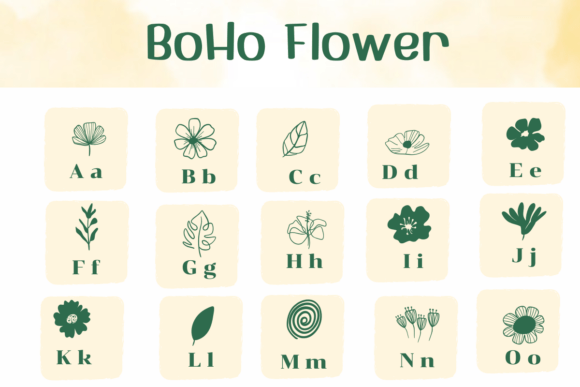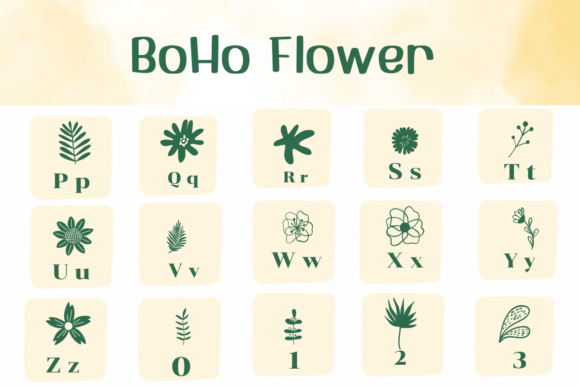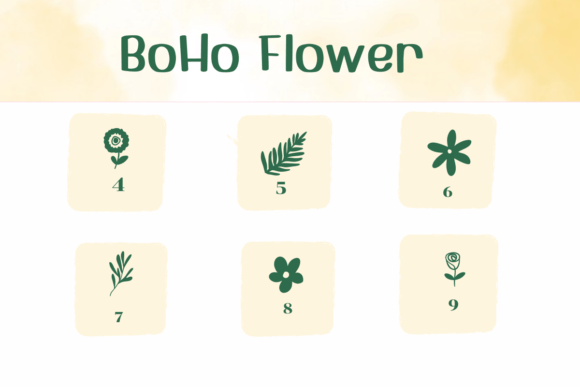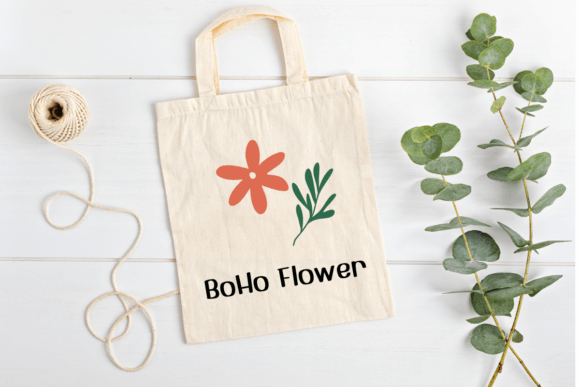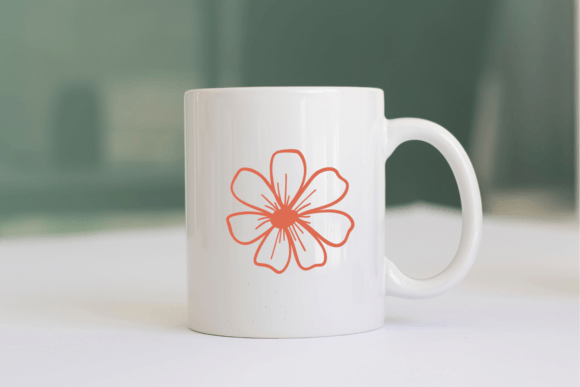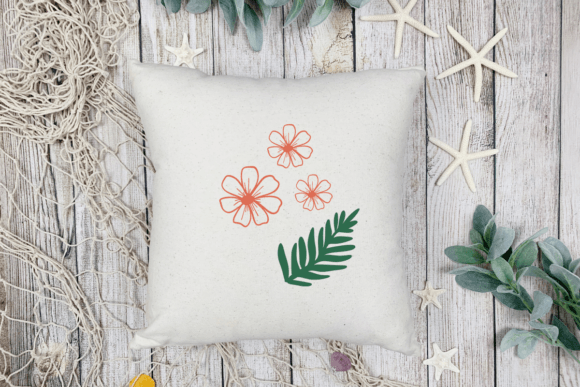
Introducing BoHo Flower Font: Elevate Your Creative Projects with a Touch of Floral Elegance
Are you a designer, crafter, or DIY enthusiast looking for a unique and charming font to add a personal touch to your creative projects? Look no further than BoHo Flower Font, a beautiful dingbats font with a floral theme that’s perfect for a wide range of applications. From wedding invitations and decorations to logos and craft designs, BoHo Flower Font is the ideal choice for anyone seeking to infuse their work with a dash of elegance and whimsy.
What is BoHo Flower Font?
BoHo Flower Font is a specially designed dingbats font that features an exquisite collection of floral symbols, perfect for adding a touch of nature-inspired beauty to your creative projects. This font is meticulously crafted to provide a unique and eye-catching aesthetic that’s sure to captivate your audience. With BoHo Flower Font, you can easily create stunning designs that exude a sense of charm and sophistication.
Uses of BoHo Flower Font
The versatility of BoHo Flower Font makes it an excellent choice for a wide range of creative projects, including:
- Wedding Invitations: Add a touch of romance and whimsy to your wedding invitations, save-the-date cards, and other wedding-related designs with BoHo Flower Font.
- DIY and Crafts: Use BoHo Flower Font to create beautiful and unique designs for your DIY projects, such as paper crafts, scrapbooking, and home decor.
- Decorations: Add a personal touch to your party decorations, garlands, and other event designs with the charming floral symbols of BoHo Flower Font.
- Logos and Branding: Use BoHo Flower Font to create a distinctive and memorable logo for your business or brand, perfect for floral shops, wedding planners, and other related industries.
- Stationery and Gift Tags: Create beautiful and elegant stationery, gift tags, and cards with BoHo Flower Font, perfect for special occasions and everyday use.
Benefits of Using BoHo Flower Font
BoHo Flower Font offers a range of benefits that make it an excellent choice for designers and crafters, including:
- Unique and Eye-Catching Designs: BoHo Flower Font provides a distinctive and charming aesthetic that’s sure to set your designs apart from the rest.
- Easily Customizable: With BoHo Flower Font, you can easily customize your designs to suit your personal style and branding needs.
- Versatile: BoHo Flower Font can be used for a wide range of creative projects, from digital designs to print materials.
- High-Quality: BoHo Flower Font is meticulously crafted to provide a high-quality aesthetic that’s perfect for professional designs.
Tips for Using BoHo Flower Font
To get the most out of BoHo Flower Font, here are some tips to keep in mind:
- Experiment with Different Sizes and Colors: Play around with different sizes and colors to find the perfect combination for your design.
- Mix and Match with Other Fonts: Combine BoHo Flower Font with other fonts to create a unique and visually appealing design.
- Use for Digital and Print Materials: BoHo Flower Font can be used for both digital and print materials, making it a versatile choice for a wide range of projects.
BoHo Flower Font is a beautiful and versatile dingbats font that’s perfect for designers, crafters, and DIY enthusiasts looking to add a touch of floral elegance to their creative projects. With its unique and eye-catching designs, easily customizable features, and high-quality aesthetic, BoHo Flower Font is an excellent choice for anyone seeking to elevate their designs and create a lasting impression.